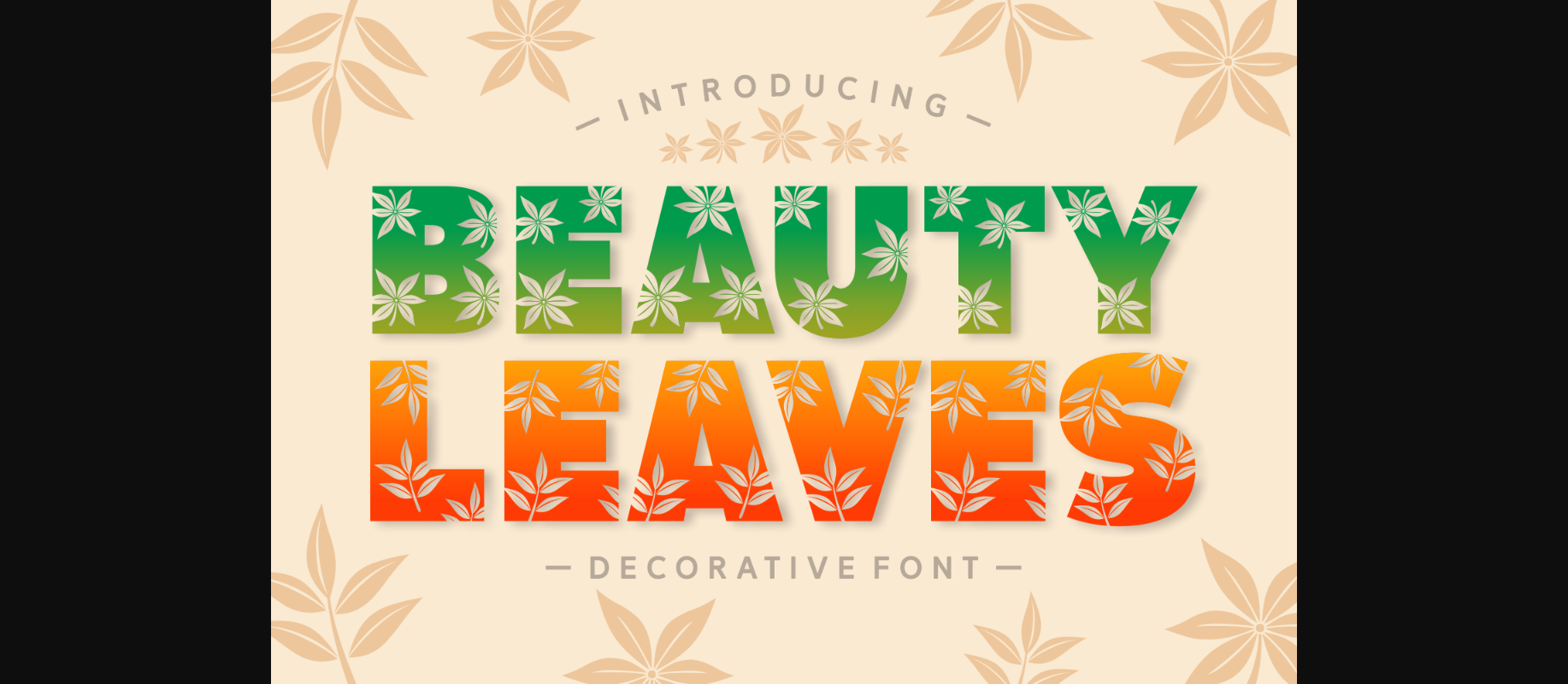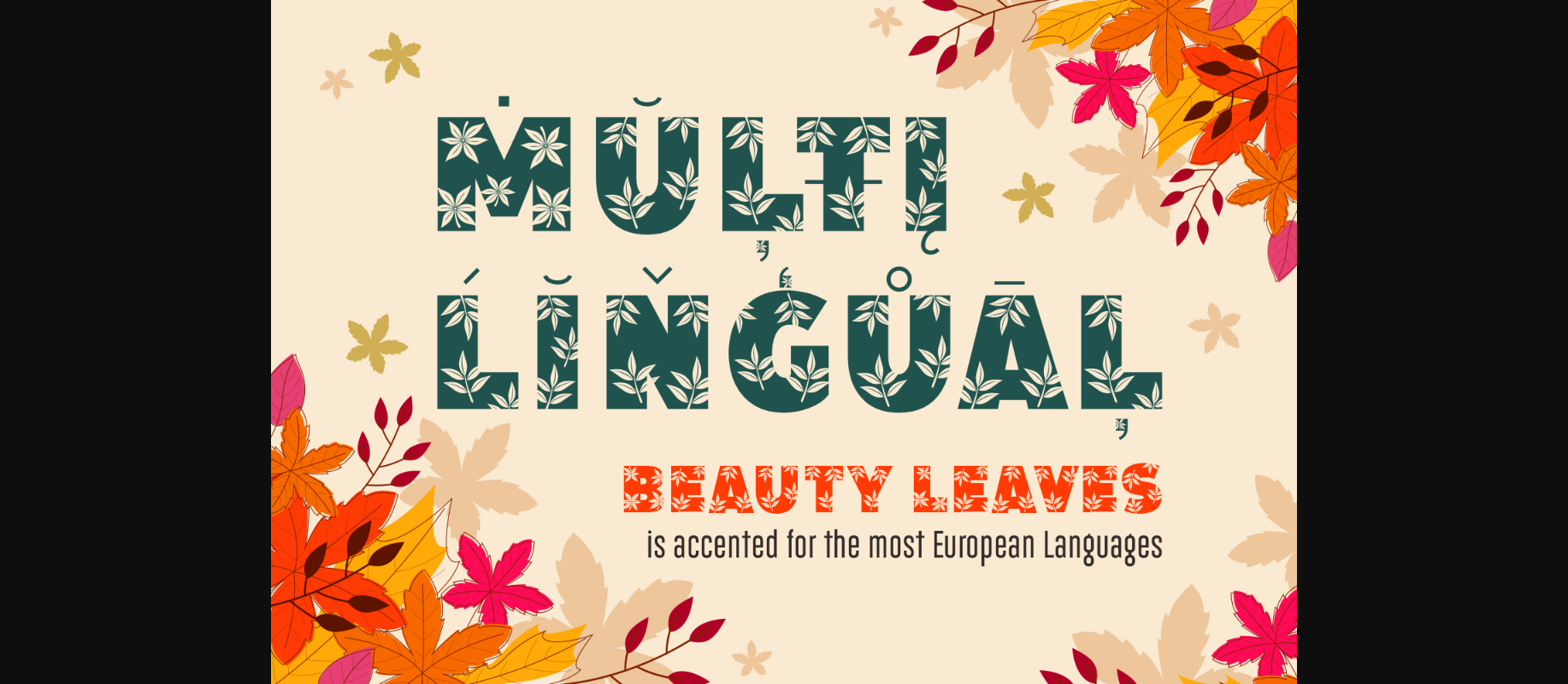
About Beauty Leaves Font
Beauty Leaves is a beautiful and elegant and flowery decorative font. It was particularly crafted for those who need a beautiful and refreshing look to their designs.